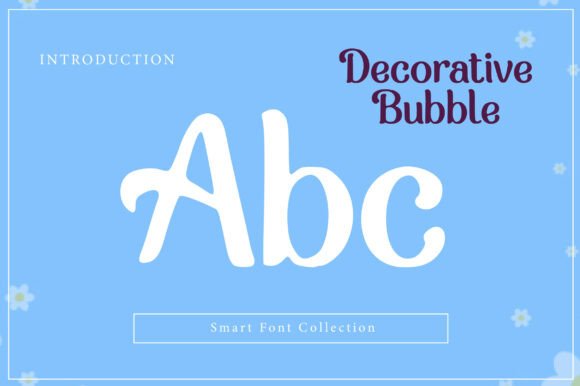
Introduction to Decorative Bubble Font
Decorative Bubble is a charming, bold display font that blends bubbly softness with a decorative vintage twist.
The Decorative Bubble font is a delightful twist on modern script, blending fluid motion with a playful, bubbly weight This Decorative Bubble typeface features elegant loops and soft terminals that create a sense of continuous, airy movement.
Key Features of Decorative Bubble Font